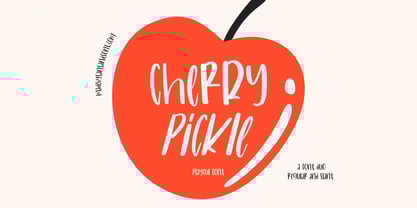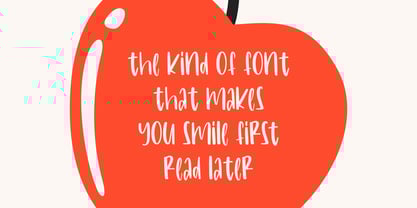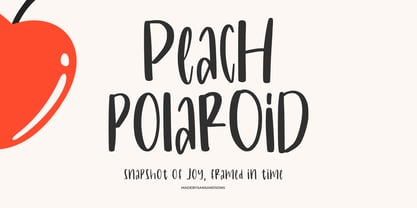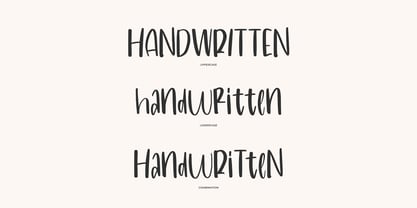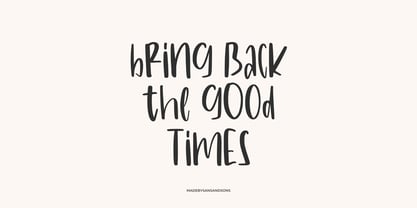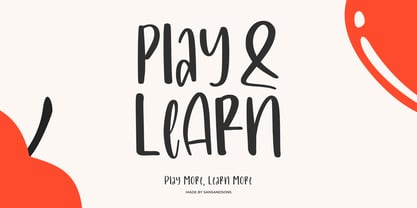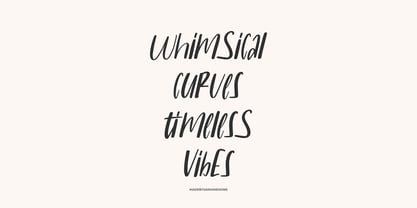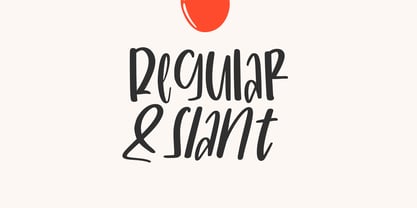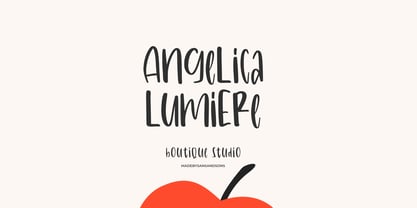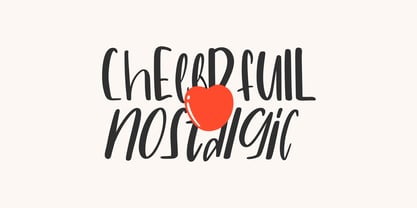
Cherry Pickle
by Sans And Sons
The Cherry Pickle Font Family was designed by Angga Suwista and published by Sans And Sons. Cherry Pickle contains 2 styles and family package options. More about this family
Cherry Pickle – Playful Handwritten Script by Sans & Sons
Meet Cherry Pickle – a cheerful handwritten font that brings personality, warmth, and a hand-crafted vibe to your designs. With smooth strokes and a naturally flowing baseline, Cherry Pickle is perfect for those who want their work to feel more human, heartfelt, and totally unique.
Whether you're designing for branding, packaging, social media, quotes, or wedding invitations, this font adds an expressive and joyful flair that effortlessly draws attention.
Designers: Angga Suwista
Foundry: Sans And Sons